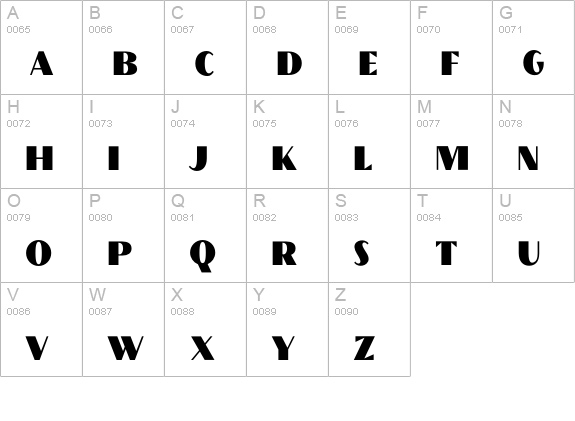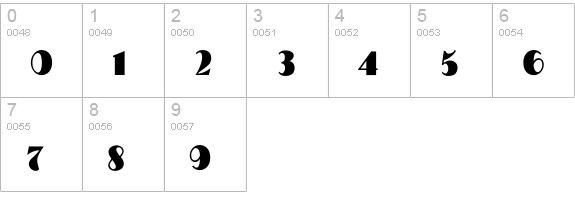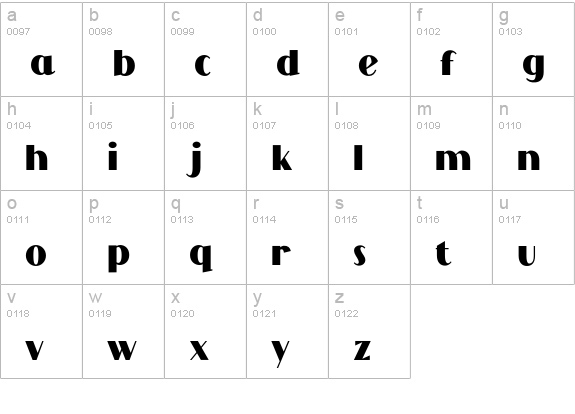
CamionBold Font Details
CamionBold font is a bold and impactful typeface designed for making a statement in your designs. With its strong, sturdy letterforms and commanding presence, CamionBold is perfect for headlines, logos, posters, and more. The font exudes confidence and authority, making it ideal for projects that require a bold and powerful touch. What's even better is that CamionBold is available for free download at FontsMarket.com. This means you can easily access this striking font to elevate your designs without any cost. Don't miss out on the opportunity to add CamionBold to your font collection and make a lasting impression with your creative projects.